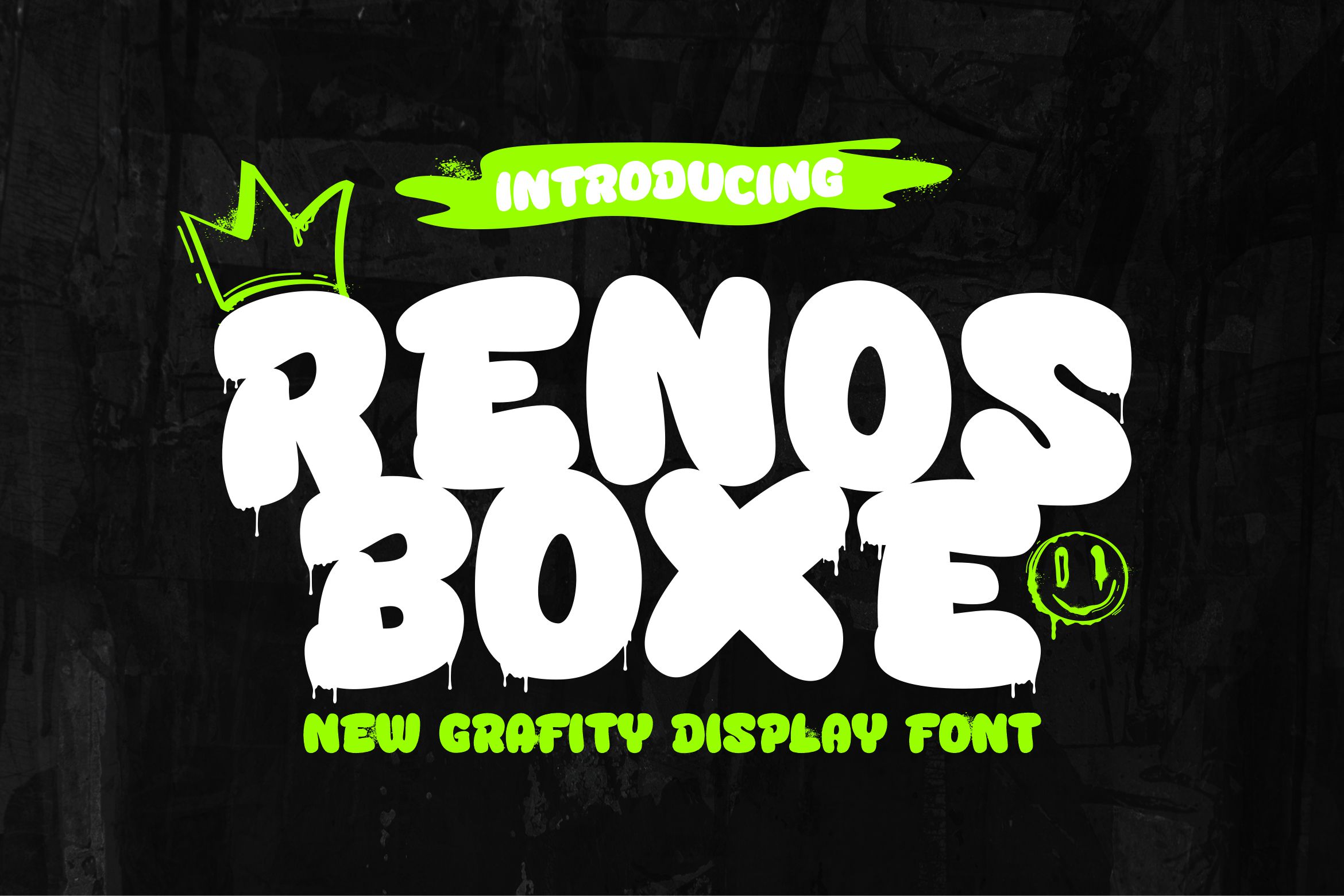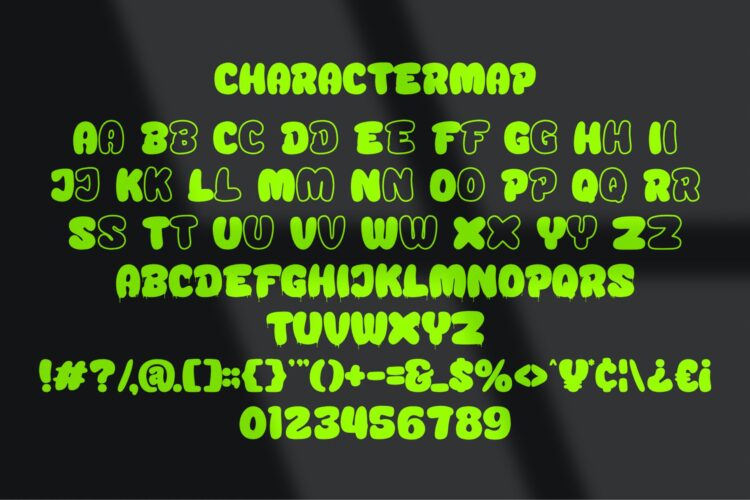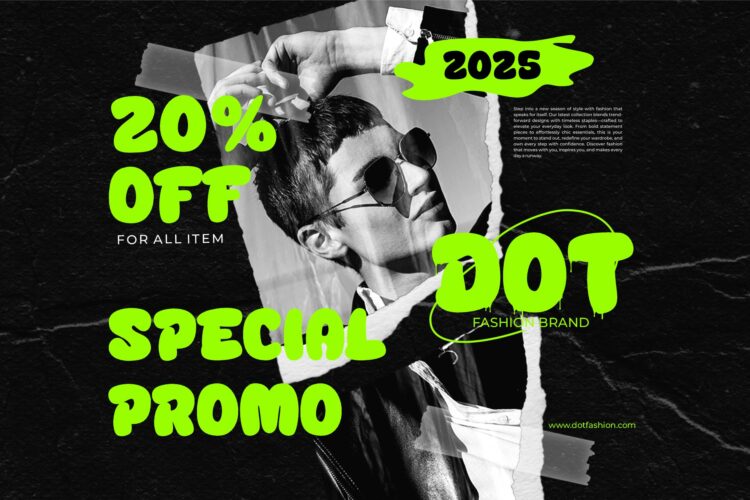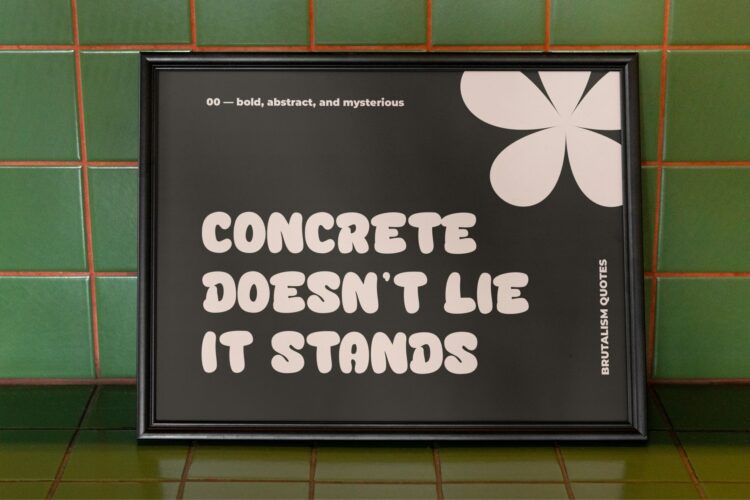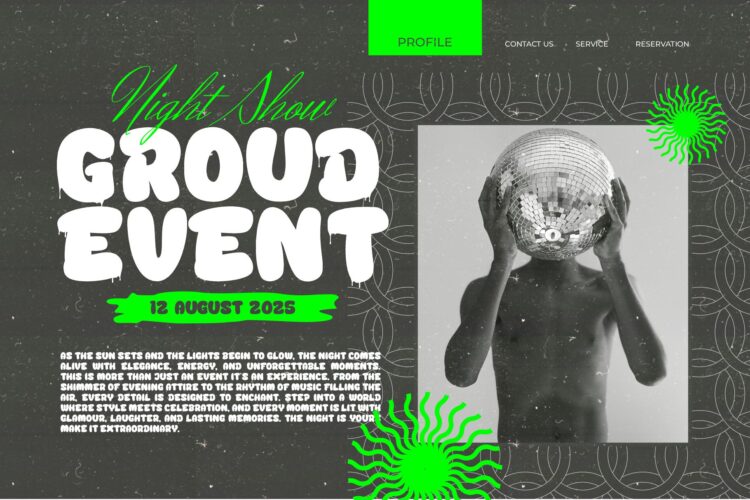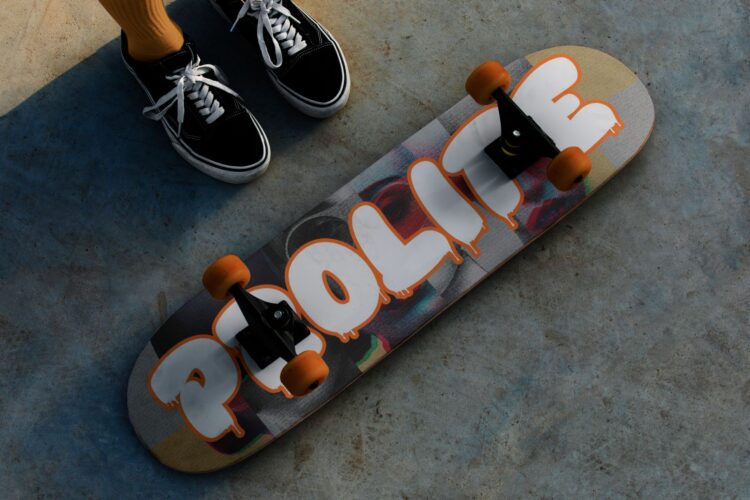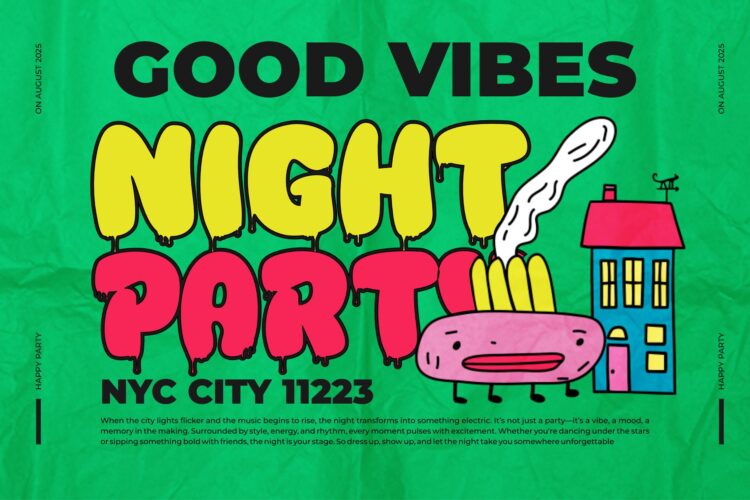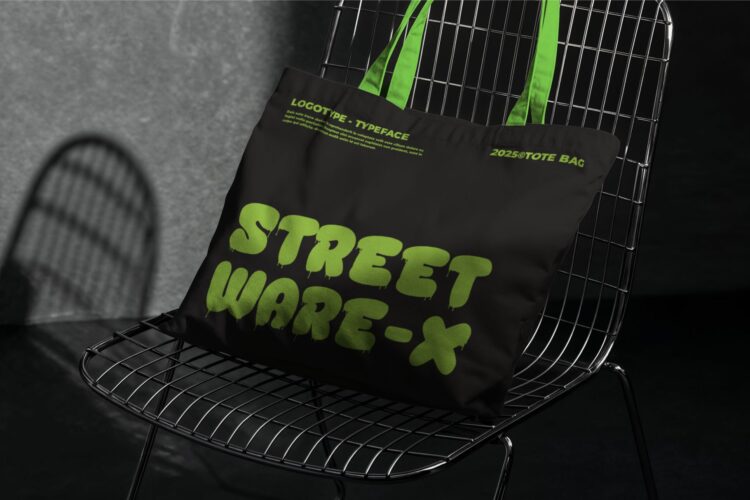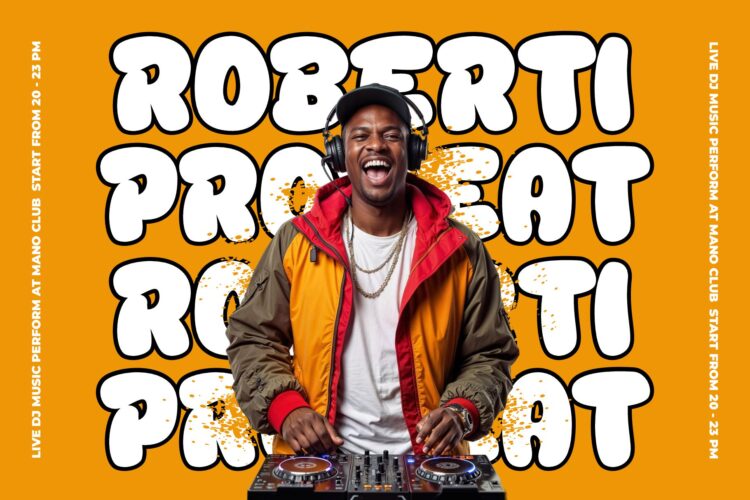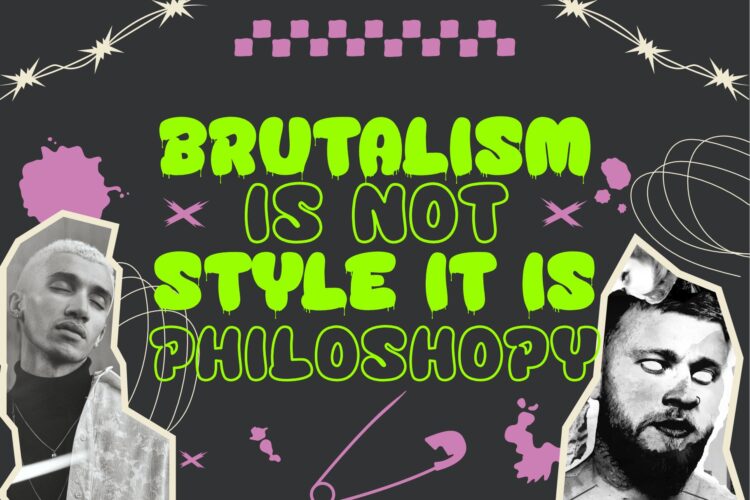
Renos Boxe
Renos Boxe is a one-of-a-kind display graffiti font that brings a fresh and urban edge to your creative projects. With its unique and bold design, this font exudes the spirit of street art, making it perfect for eye-catching headlines, posters, and artistic displays. Each character features intricate details and a playful, edgy style, capturing the essence of contemporary graffiti art. Whether you’re designing for an urban event, a modern brand, or simply want to stand out, Mock Bear is the ideal choice to add an energetic and dynamic touch to your designs.
Renos Boxe || Grafity Display Font